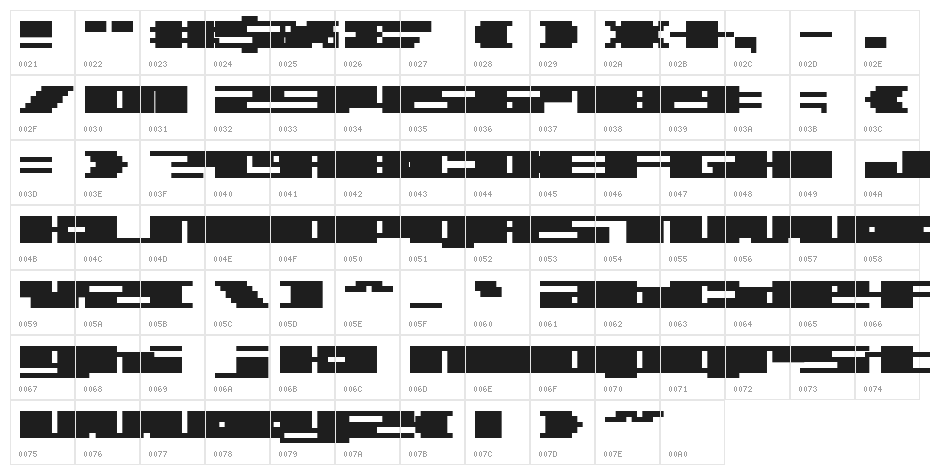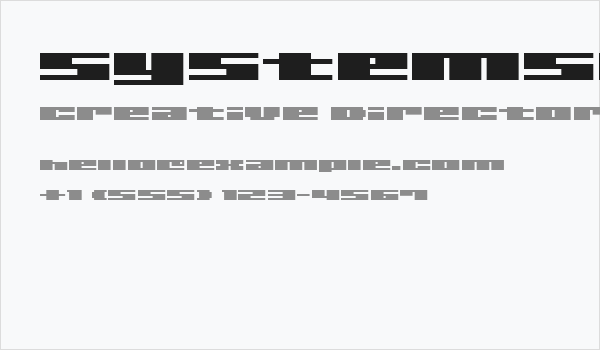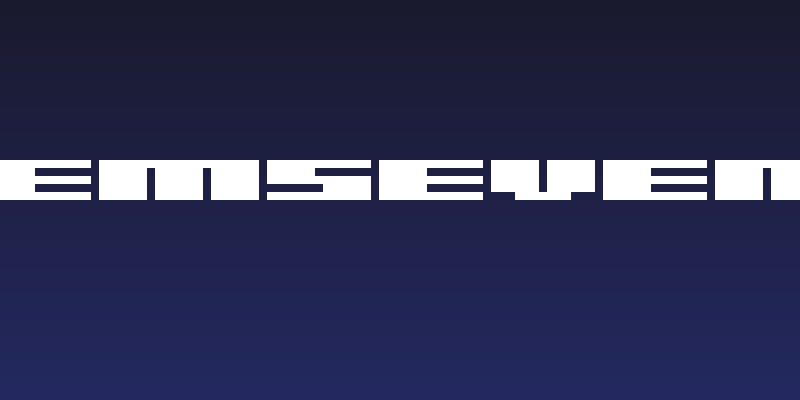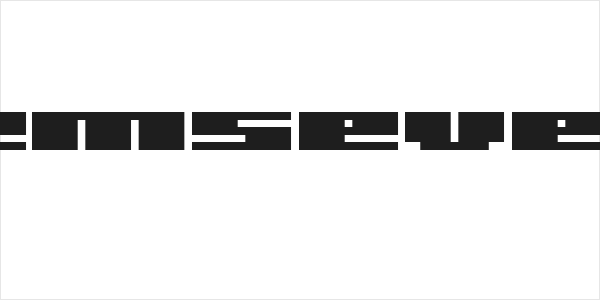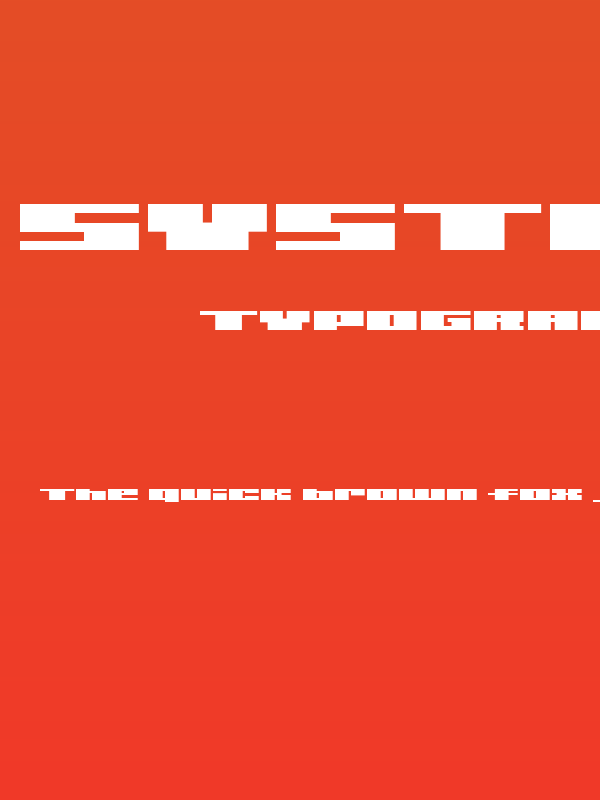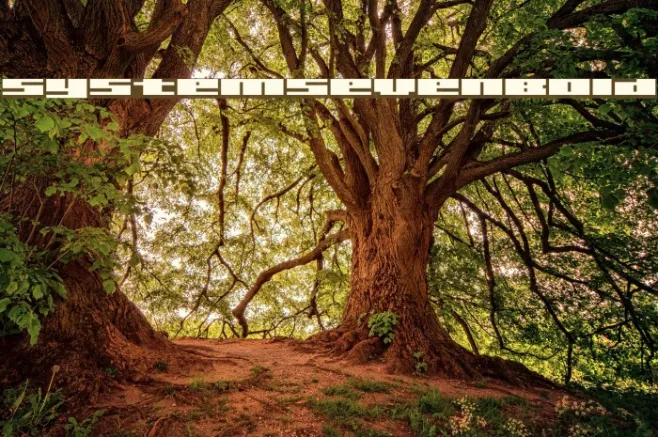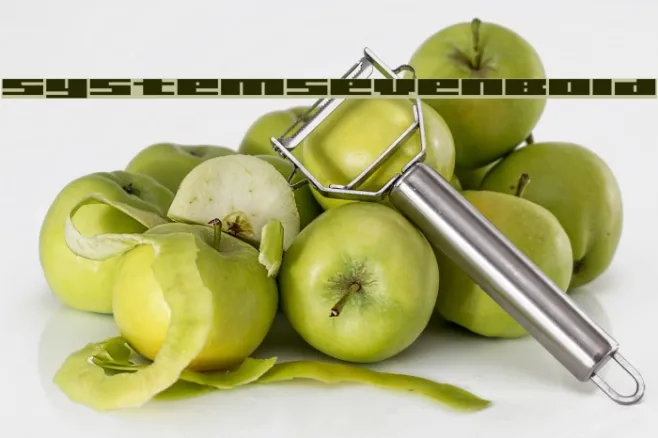
SystemSevenBold Font
SystemSevenBold Description
This font features a bold, pixelated design reminiscent of classic video game aesthetics. Each character is constructed with a blocky, geometric style, giving it a distinctly digital appearance. The uppercase and lowercase letters maintain a uniform height, contributing to a cohesive and structured look. The numbers and special characters follow the same design principles, ensuring consistency across all glyphs. The font's boldness and unique style make it stand out, while its clear legibility ensures it remains functional for various uses.
| Overall Style | Modern, Digital |
| Proposed Projects | Ideal for retro video game designs, digital-themed posters, and tech-related branding. |